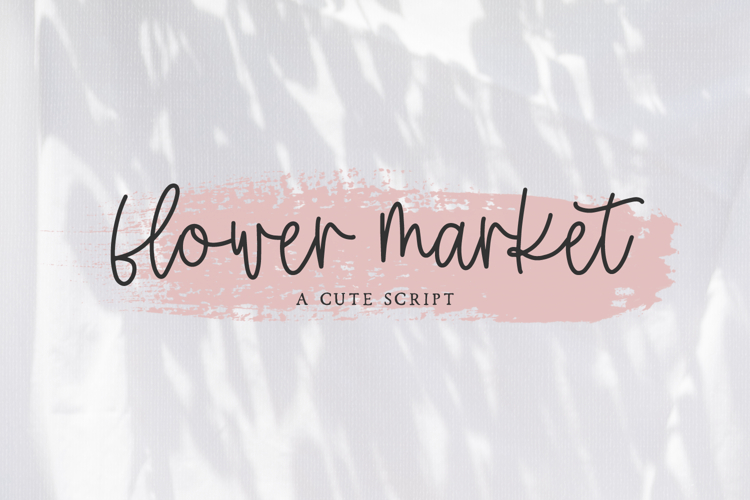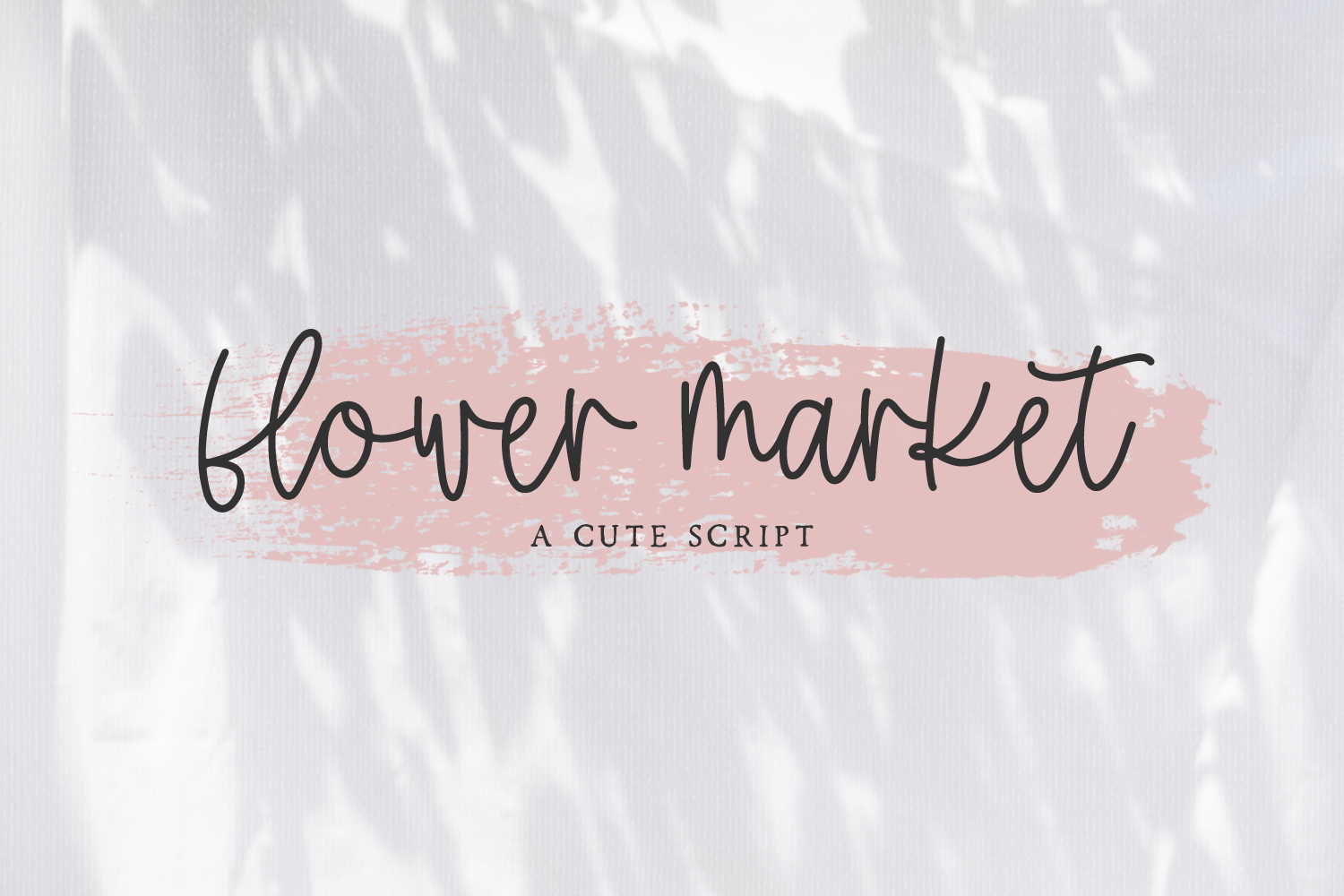
Introducing Flower Market Script, a cute monoline modern calligraphy font with a little bounce.
Flower Market Script is best for:
- feminine, crafty projects with your Cricut or Silhouette machine, or your SVG design business
- farmhouse decor and crafts
- website design + website accents, blog design
- feminine graphic tee shirt design & other apparel